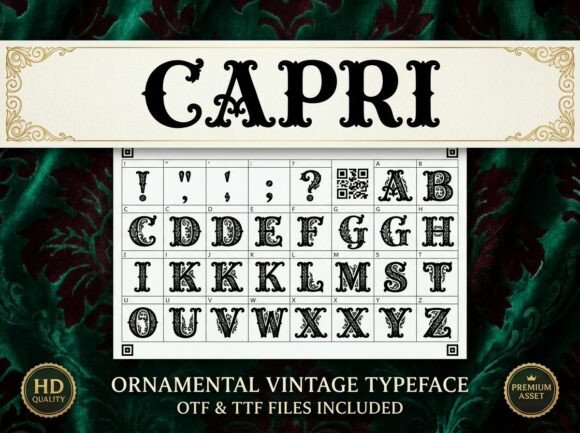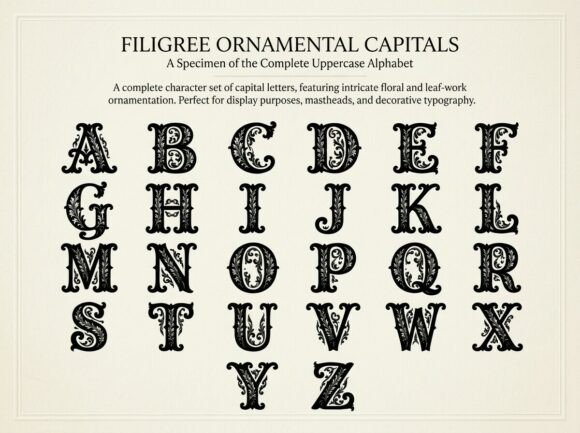
Introducing Capri Font: Elevate Your Visual Storytelling with Timeless Elegance
In the world of typography, few fonts manage to convey the essence of luxury, sophistication, and timelessness. Capri Font is one such refined display serif that embodies a “stately-and-sculpted” soul, perfect for elevating your visual storytelling. With its unique blend of classic and modern elements, Capri is poised to become the premier choice for designers and crafters seeking to create high-end visual identities.
The Distinctive Characteristics of Capri Font
Capri Font boasts classic, high-contrast letterforms that are uniquely characterized by rhythmic, hand-etched acanthus leaf engravings and ornate spurred terminals. These distinctive features bridge the gap between Victorian architectural details and modern luxury branding, resulting in a font that exudes prestige and sophistication. The medium structural weight of Capri adds to its authoritative and antique feel, making it perfect for a range of applications.
Perfect for High-End Applications
Capri Font is specifically designed for use in high-end applications where luxury and sophistication are paramount. Some of the ideal uses for Capri include:
- Independent high-end jewelry identities: Capri’s elegant and refined design makes it perfect for creating luxurious brand identities for jewelry designers and retailers.
- Boutique hotel logos: The font’s stately and sculpted feel is well-suited to creating sophisticated logos for boutique hotels and luxury resorts.
- Premium editorial layouts: Capri’s classic and elegant design makes it an excellent choice for use in high-end editorial layouts, such as fashion magazines and luxury lifestyle publications.
- High-impact social media headers: The font’s authoritative and antique feel makes it perfect for creating eye-catching social media headers that demand attention.
Why Choose Capri Font?
So why choose Capri Font over other display serifs? Here are just a few reasons why Capri stands out:
- Timeless elegance: Capri’s classic design ensures that it will remain timeless and elegant for years to come, avoiding the pitfalls of trendy fonts that quickly become dated.
- Versatility: Capri’s unique blend of classic and modern elements makes it versatile enough to be used in a range of applications, from luxury branding to editorial design.
- Prestigious personality: Capri’s medium structural weight and ornate details give it a prestigious personality that is perfect for high-end applications.
Tips for Using Capri Font Effectively
To get the most out of Capri Font, here are a few tips for using it effectively:
- Use it sparingly: Due to its ornate details and high-contrast letterforms, Capri is best used sparingly to avoid overwhelming the reader.
- Pair it with a neutral font: Pair Capri with a neutral font to create visual interest and add contrast to your design.
- Experiment with color: Capri’s elegant design lends itself well to a range of colors, so don’t be afraid to experiment and find the perfect hue to match your brand.
Capri Font is a refined display serif that is poised to become the go-to choice for designers and crafters seeking to create high-end visual identities. With its timeless elegance, versatility, and prestigious personality, Capri is perfect for a range of applications, from luxury branding to editorial design. By incorporating Capri into your design toolkit, you’ll be able to elevate your visual storytelling and create stunning designs that demand attention.